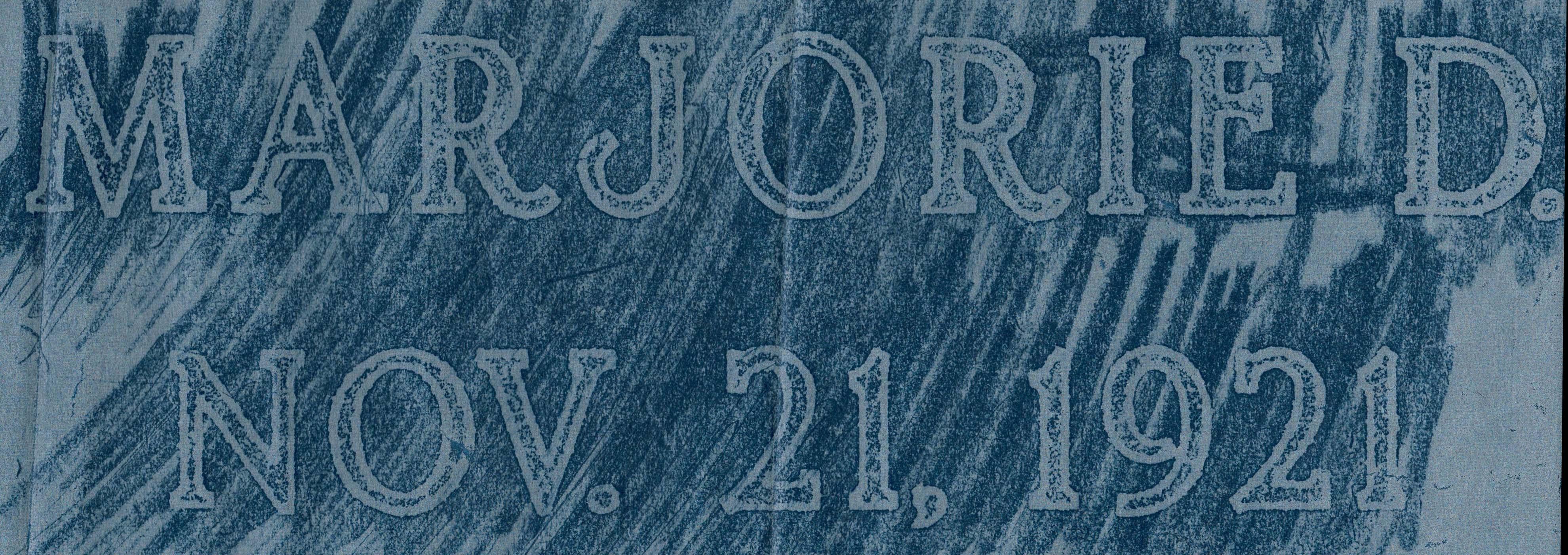
Can you identify this font?
Hi Liz, yes, this is the Spacerite Double Outline, which is believed to be the first standardized outlined alphabet for the industry. The MLC has an original 1947 advertising mailer for this alphabet in the collection, and rubbings of the metal letters at multiple sizes.
This is a font currently being worked on, but is not yet completed, and will likely be a month or two before it is finished. As far as it is known the font is not available in any monument industry software.